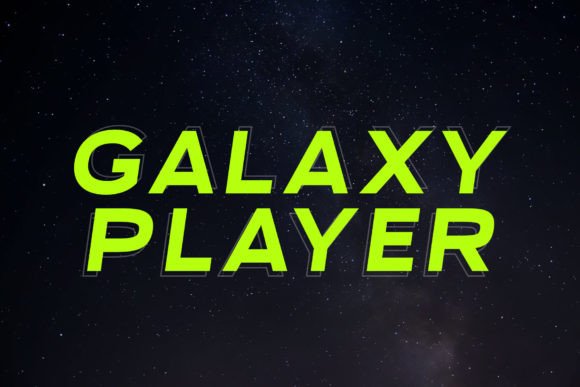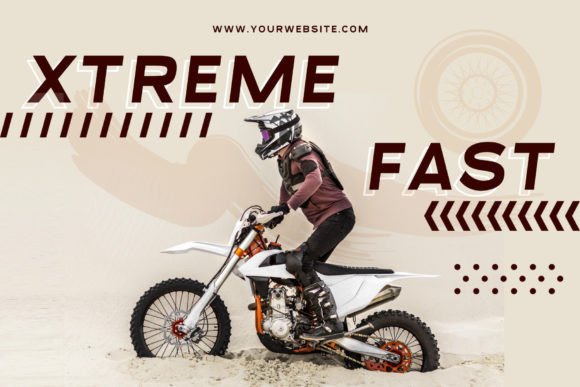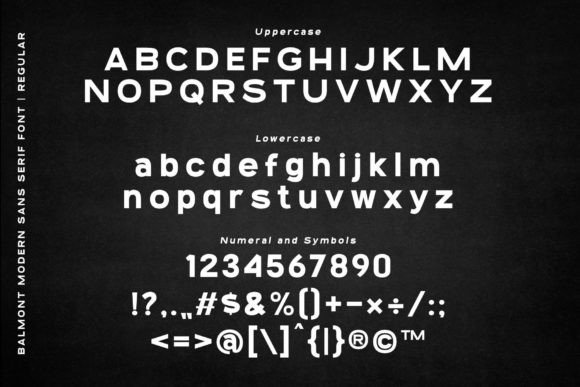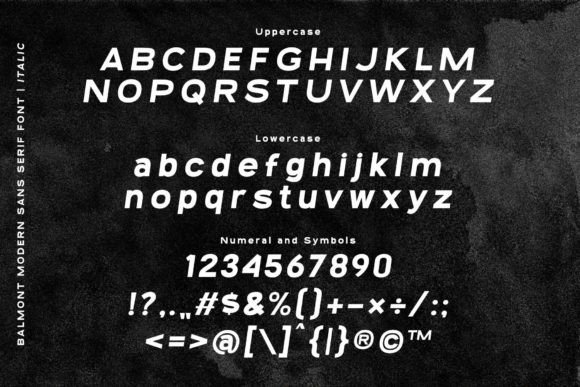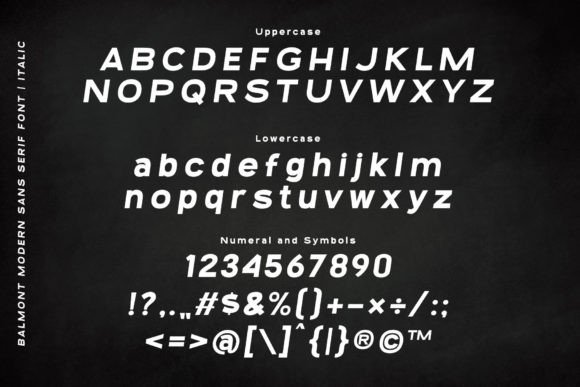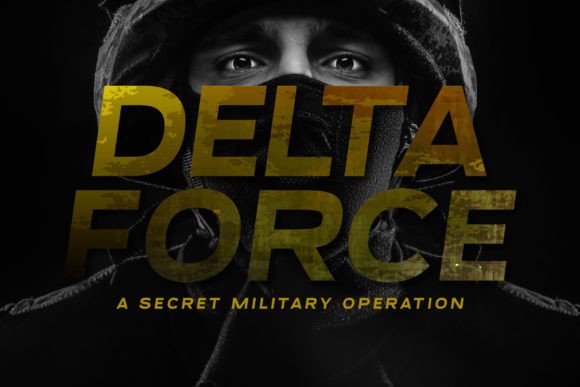
The Perfect Typography for Your Next Design Project
Have you ever stared at a blank page, trying to come up with the perfect font to bring your design to life? We’ve all been there, right? You want something that’s sleek, elegant, and catches the eye. For designers, finding the right font can be a game-changer.
That’s where the Balmont Font comes in. This modern sans serif font is perfect for any design project that requires a touch of sophistication. With two styles, regular and italic, you can create different effects and moods to suit your theme. Whether you’re working on logos, posters, flyers, banners, or social media graphics, Balmont Font is a valuable addition to your design arsenal.
What sets Balmont apart is its versatility. It’s a font that can adapt to any style, making it a go-to choice for designers who want to create stunning visuals without compromising on quality. So, if you’re looking for a font that will elevate your designs, give the Balmont Font a try.
Balmont Font Key Features
- Font Family: Balmont Font is a modern sans-serif font, suitable for various design projects.
- Size: Balmont Font comes in multiple weights, ranging from Light (100) to Bold (700), providing flexibility for different design needs.
- Unique Characteristics: Balmont Font features a clean and elegant design, with subtle rounded edges and a refined x-height, creating a professional and modern look.
Balmont Font Review
I recently had the chance to work with the Balmont Font, and I have to say, it’s a decent addition to any designer’s toolkit. Here are some things that work well: ✨
- Legibility: The Balmont Font is highly legible, making it perfect for body text and even headings.
- Flexibility: It comes in a range of weights, from light to bold, giving designers plenty of options for different design scenarios.
- Modern feel: The font has a modern feel to it, which can be beneficial for designs that require a fresh and contemporary look.
- Lack of character: While the font is highly legible, it can come across as a bit bland and lacking in personality.
- Not ideal for bold statements: Due to its legibility-focused design, the Balmont Font may not be the best choice for making bold statements or creating eye-catching headlines.
Overall, the Balmont Font is a solid choice for designers who need a versatile and legible font. While it may not be the most exciting or attention-grabbing option, it gets the job done and is definitely worth considering for your next design project.
Getting the Most Out of Balmont Font
To get the most out of Balmont Font, experiment with different font sizes, colors, and styles to create a unique look. You can also pair Balmont Font with other fonts to create a harmonious design. Additionally, use Balmont Font to create headings and titles to draw attention to important information.
Balmont Font is commonly used for: creating elegant and sophisticated designs, adding a touch of luxury to your branding, and creating headings and titles that stand out. You can use Balmont Font in a variety of design projects, including business cards, brochures, and websites.